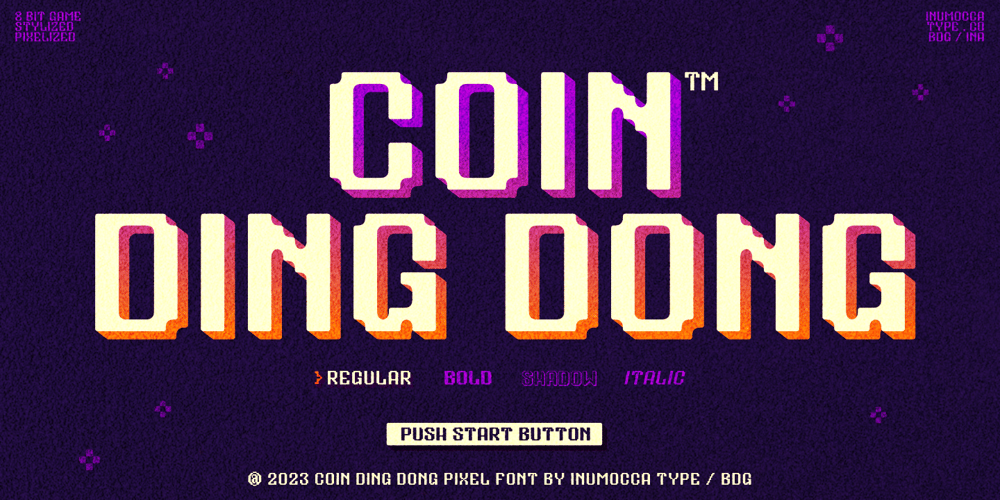
Coin Ding Dong Font Family was designed by Inu Mocca and published by Inumocca. Coin Ding Dong contains 4 styles and family package options. Coin Ding Dong pixel Font inspired from 8 bit game with beautiful stylized pixelized,game machine really reminds me of my childhood, with coins you can play it,in my country machine games are called “dingdong”, inspired me to create this pixel font name.Really Beautiful font to covering your Project, like For Game Names, Poster art, Magazine, Branding, Logos, and more your project design.- Unique glyphs- Multilingual Characters- UPPERCASE- Lowercase- Numeric- Symbol- Punctuation Character- PUA encodedinumoccatype